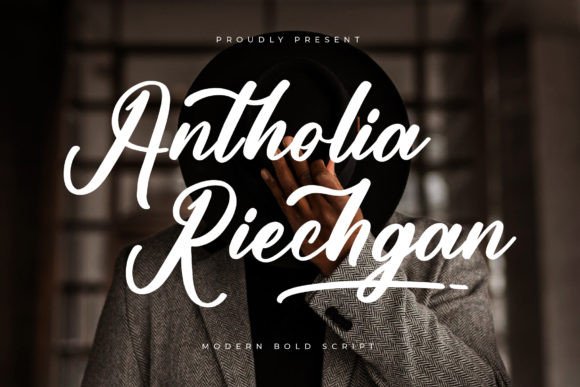
Ah, the eternal quest for the perfect font! I recall a particularly frustrating design moment when I was working on a luxury branding project for a high-end jewelry client. The brief was simple: create a sophisticated, eye-catching logo that exuded elegance and refinement. Sounds easy, right? But when I sat down to start designing, I realized that finding the right font was proving to be a major challenge.
I scoured the usual font sites, but nothing seemed quite right. The fonts were either too ornate, too bland, or just plain overused. That’s when I stumbled upon **Antholia Riechgan**, a stunning Luxury Script font from Letterena. It was love at first sight! ✨
An Honest Review of Antholia Riechgan
• 💫 **Elegant and Refined**: Antholia Riechgan is the epitome of luxury and sophistication. Its bold script strokes and flowing curves make it perfect for high-end branding projects.
• ✅ **Versatile**: This font is incredibly versatile and can be used for a wide range of projects, from logos and packaging to posters and invitations.
• 🎨 **Highly Customizable**: With its extensive range of OpenType features, glyphs, and stylistic alternates, you can easily tailor Antholia Riechgan to fit your design needs.
While Antholia Riechgan is an exceptional font, there are a few minor quirks to be aware of:
• 🤔 **Limited Use for Body Text**: Due to its bold and ornate nature, Antholia Riechgan is best suited for headlines and titles rather than body text.
• ⚠️ **Requires Careful Kerning**: As with any script font, kerning can be a bit tricky. Be sure to adjust the letter spacing to ensure optimal readability.
The Designer Inspiration Behind Antholia Riechgan
According to Letterena, the designer of Antholia Riechgan drew inspiration from the elegance of 18th-century calligraphy and the boldness of modern typography. The result is a font that exudes luxury, sophistication, and refinement.
Font Name Antholia Riechgan Font
Author Letterena Studios
Q: What type of projects is Antholia Riechgan best suited for?
A: Antholia Riechgan is perfect for luxury branding projects, high-end packaging, posters, invitations, and any other project that requires a touch of elegance and sophistication.
Q: Is Antholia Riechgan a difficult font to read?
A: While Antholia Riechgan is a bold script font, it’s surprisingly legible. However, as with any script font, it’s best suited for headlines and titles rather than body text.